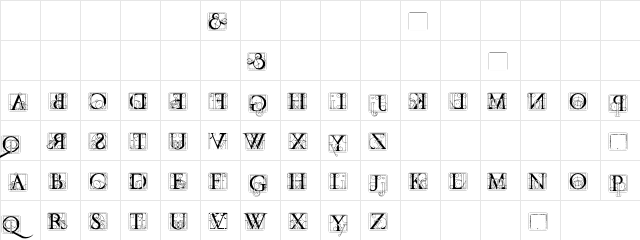
Letter In Letter Regular
Design Context for Letter In Letter Typeface
Letter In Letter is a composed and adaptable typeface that performs quietly and consistently across a wide range of design contexts.